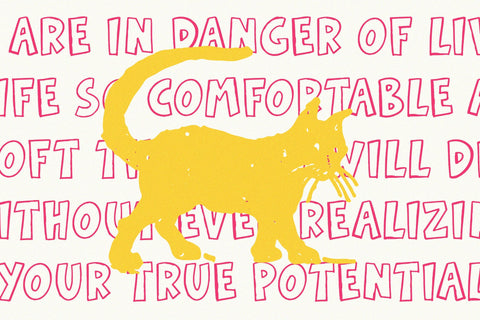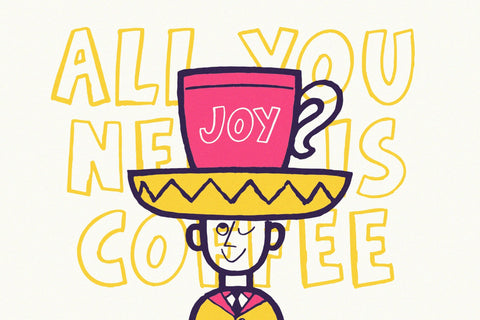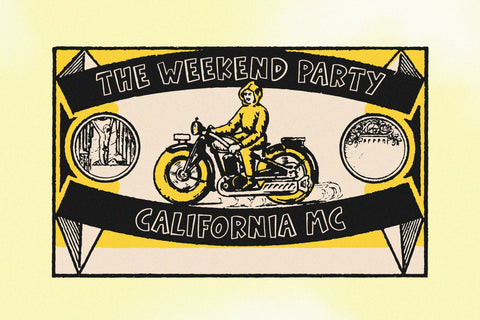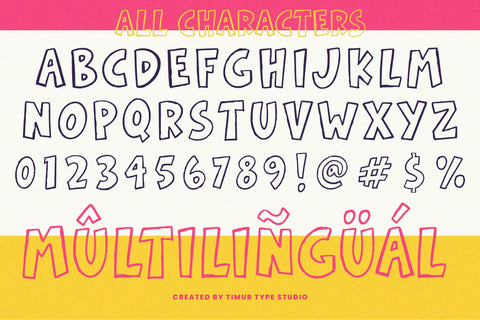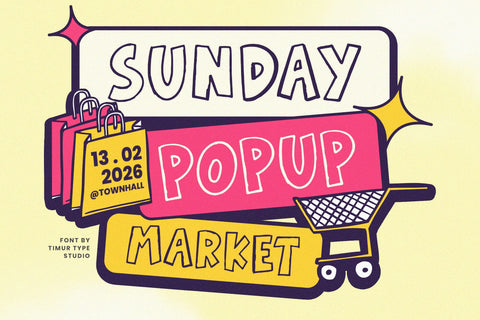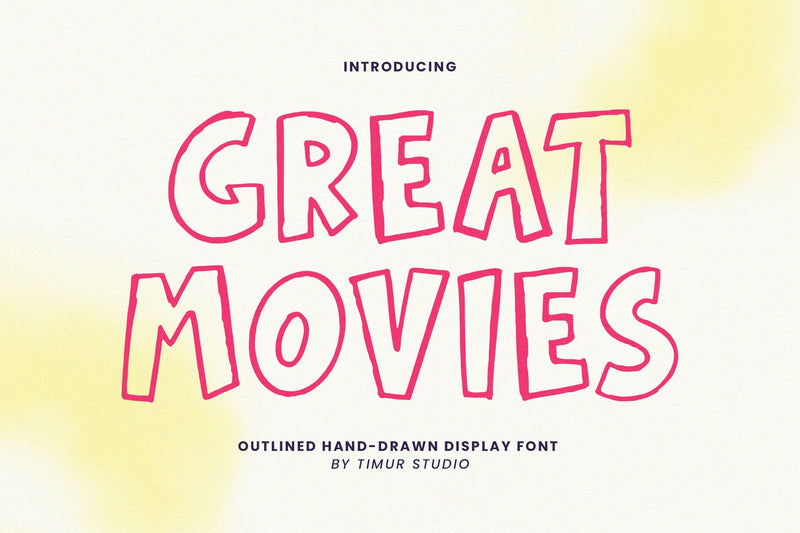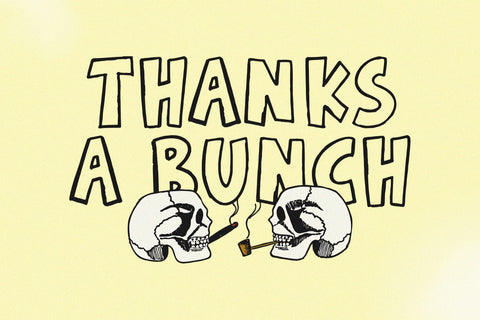
Great Movies - Outlined HandDrawn Display Font
Great Movies is a Outlined Hand-Drawn Display Font
This font is a charming hand-drawn display font that captures the essence of vintage cinema posters. Its outlines are meticulously crafted to evoke a sense of nostalgia and excitement, reminiscent of classic Hollywood. Each letter is carefully designed with a unique flair, offering a playful yet sophisticated style perfect for capturing attention in headlines, posters, or any design project aiming to convey a sense of cinematic magic and adventure.
Great Movies also supports multilingualism